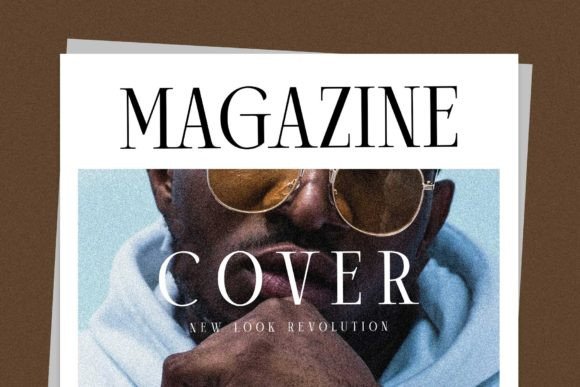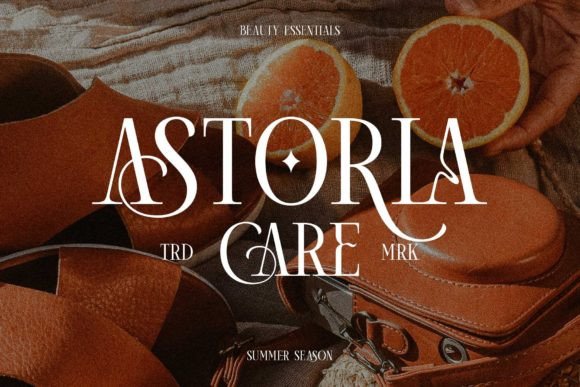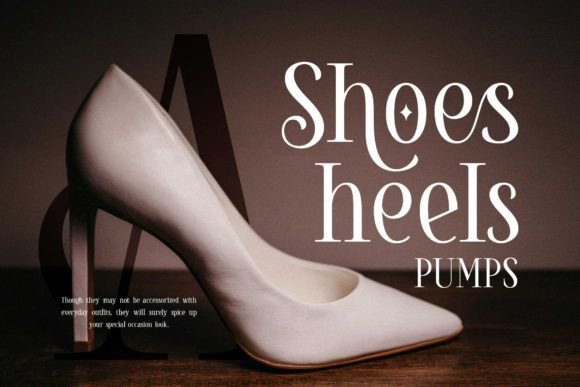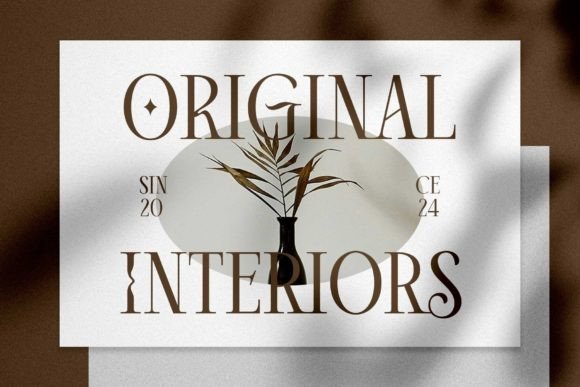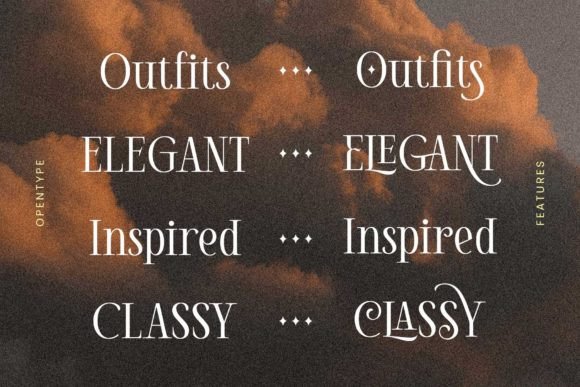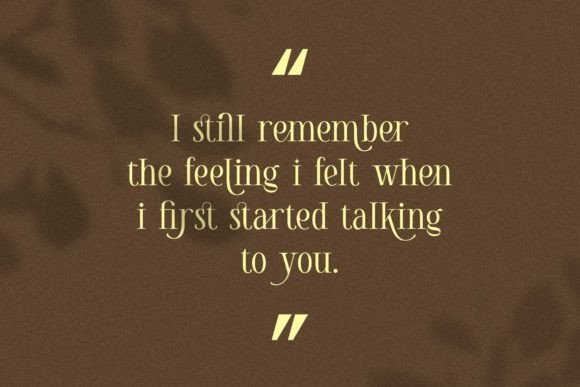
Introduction to Lumore Font
Lumore is a satisfying display serif font.
It’s classic and modern Feast your eyes on charming ligature touches and unique special characters.
Key Features of Lumore Font